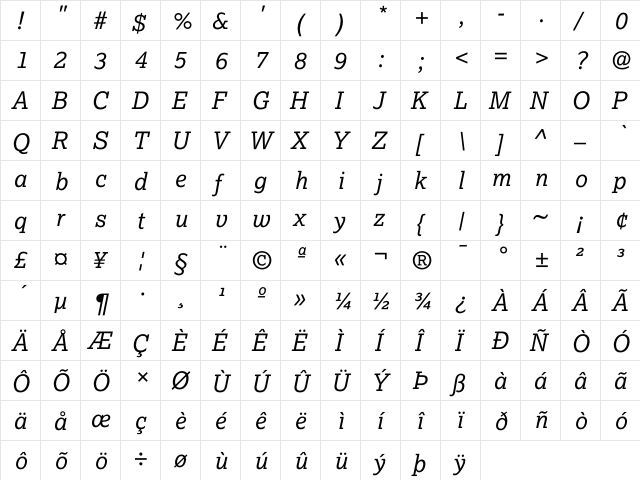
Lexia DaMa Italic
Design Context for Lexia DaMa Typeface
Lexia DaMa is a composed and adaptable typeface that performs quietly and consistently across a wide range of design contexts. The slanted form adds forward momentum and visual energy.
Pro Tip: Use Lexia DaMa for emphasis, pull quotes, and subheadings where its slanted energy can add rhythm to the layout.